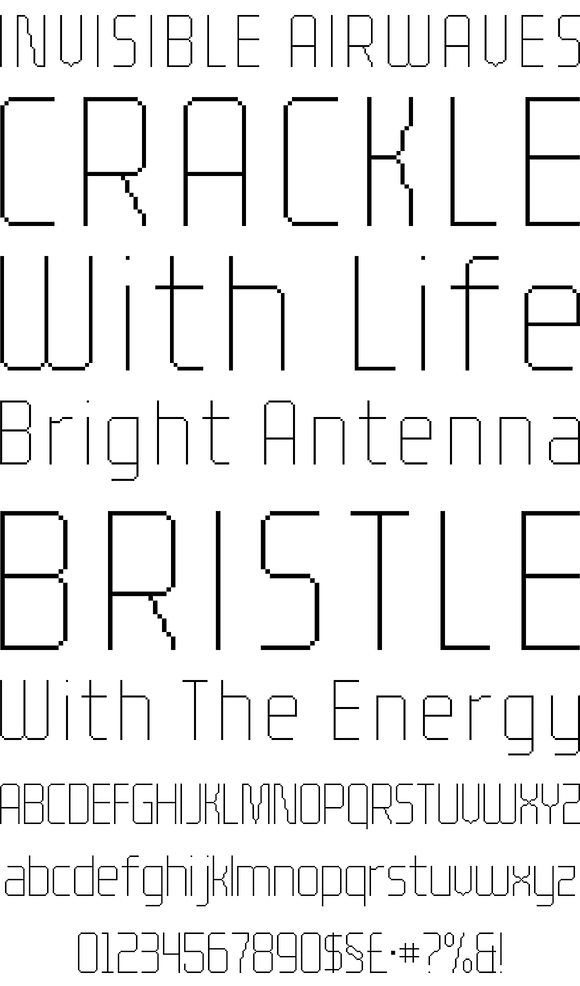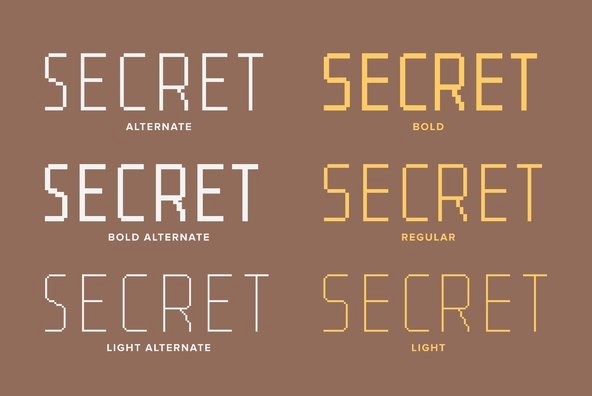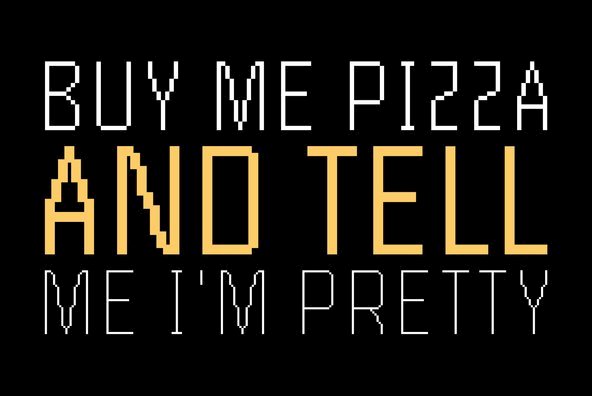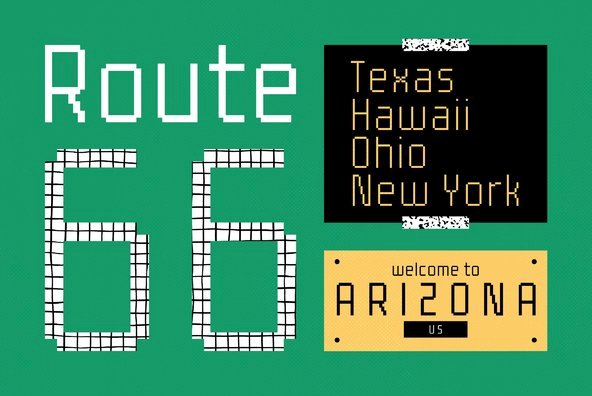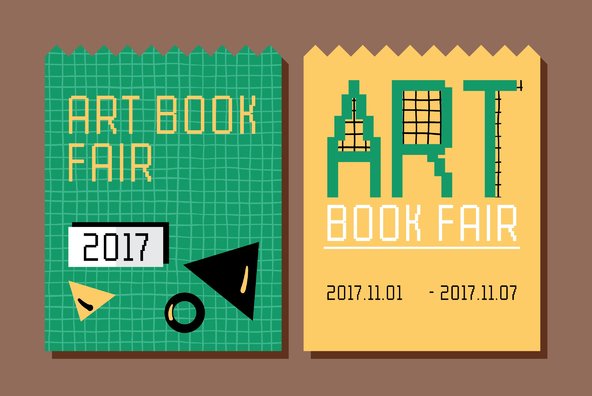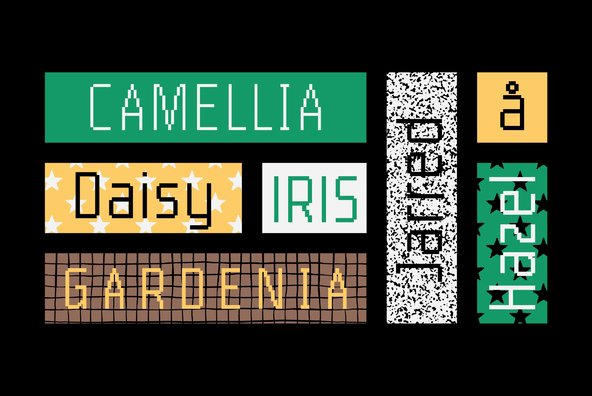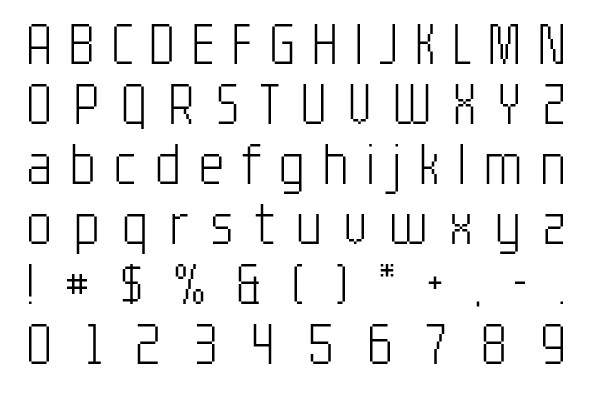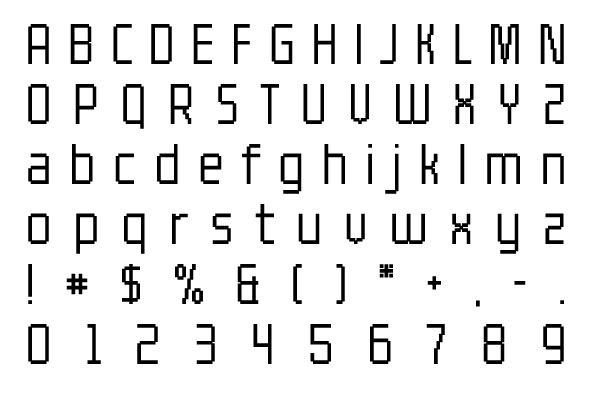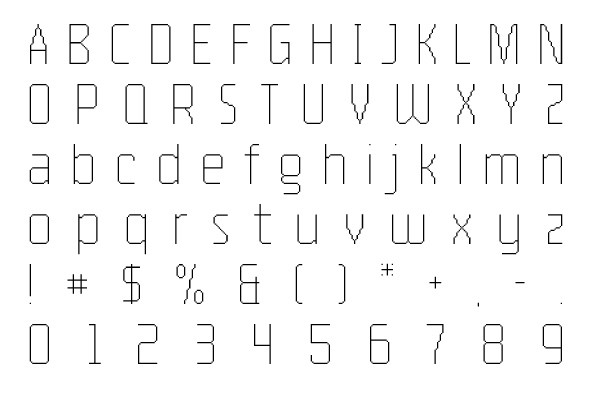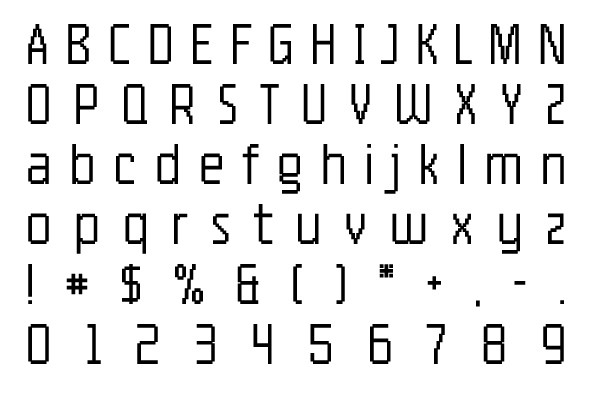
YWFT Processing 1
YWFT Processing was developed in 2001 for Casey Reas, the co-creator of the Processing programming language. We created this display face to be sharp, tall, unique and interesting...much like Mr. Reas himself. The font was derived from an original logo that already existed, and we continued the idea into a fully working six-weight font family. YWFT Processing was converted to Opentype format in 2010.